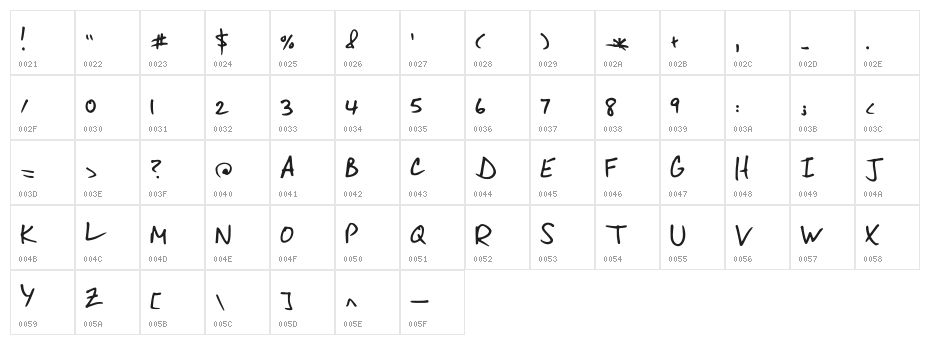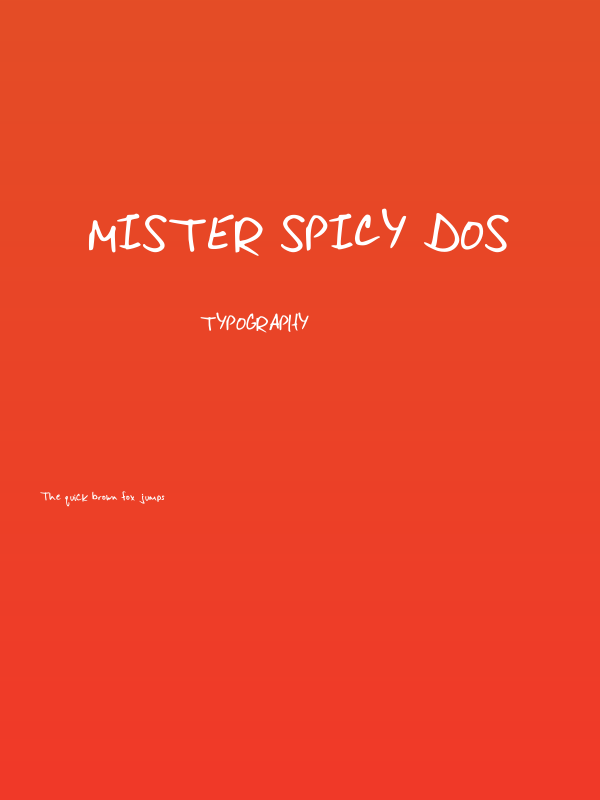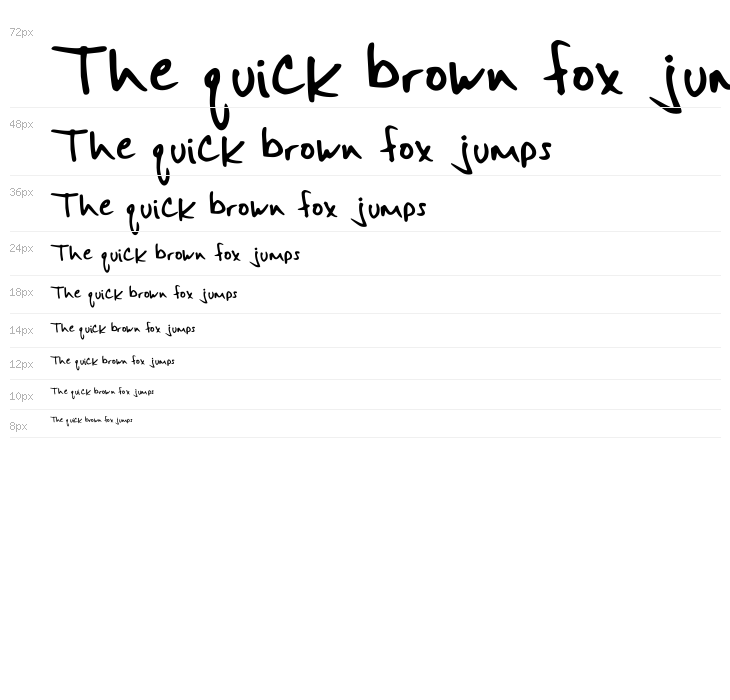
Mister Spicy Dos Font
Mister Spicy Dos Description
This font exudes a casual and playful handwritten style, characterized by its irregular strokes and informal appearance. The letters are slightly slanted, giving them a dynamic and lively feel. The uppercase and lowercase characters maintain a consistent style, with rounded edges and varying stroke widths that add to the font's charm. The numerals and special characters follow the same playful aesthetic, making the font versatile for creative projects. Its handwritten nature makes it perfect for conveying a personal touch, while the clear legibility ensures it remains functional for various uses.
| Use Case | Greeting cards, Personal notes, Casual branding |
| Proposed Projects | Ideal for greeting cards, personal notes, casual branding, and creative projects requiring a personal touch. |